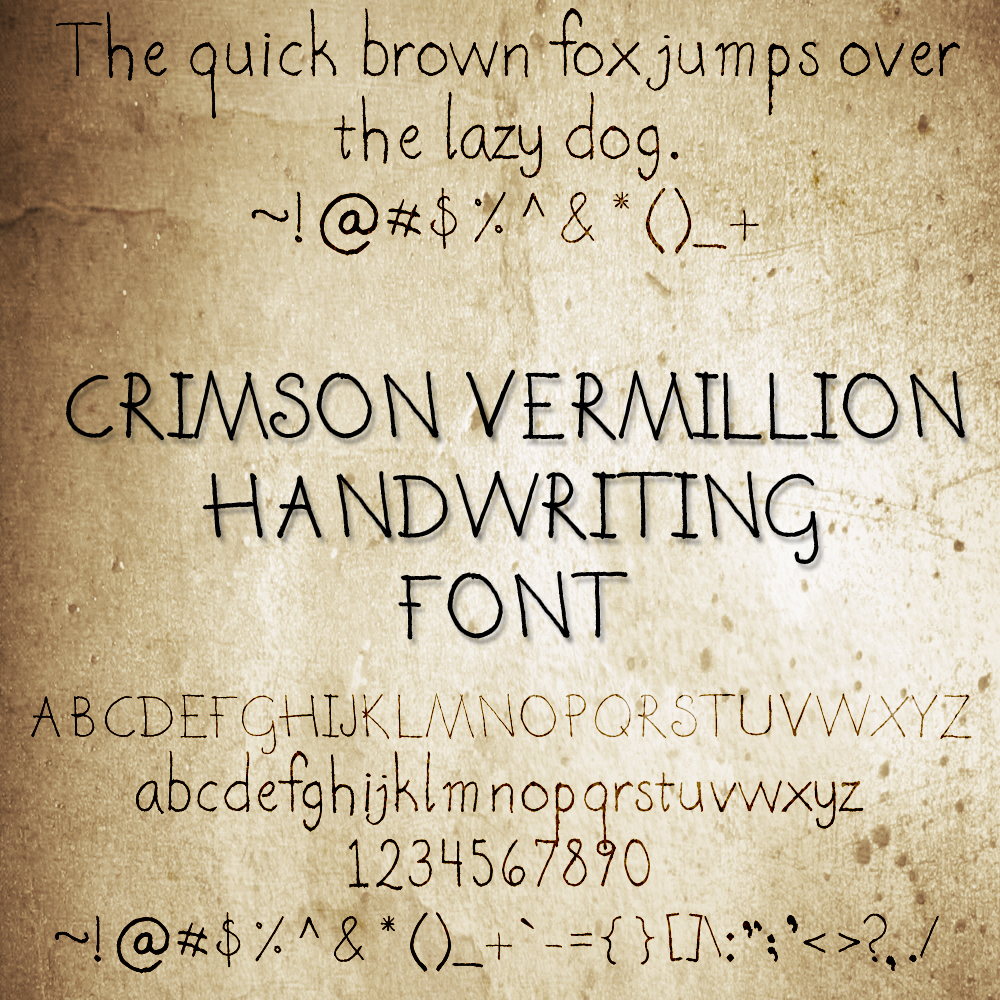
I made this!
It's kind of poor quality because it is my first font!
(My handwriting... like it?)
I found their instructions and user manual less than helpful. I just hand wrote out my ABCs and 123s and all the symbols, then took a picture of them with my camera, put them in photoshop and removed the white paper background and then cut and paste each letter/number/symbol into the proper box and saved it. Took about 4 hours.
Tip: if your font looks weird it is likely because each letter/number/symbol wasn't properly centered. The red doted guides in the edit boxes will help you. Also be sure you write it all out on one piece of paper, using the same pen, and take one shot with the camera, because otherwise you will have varying widths to your letters.